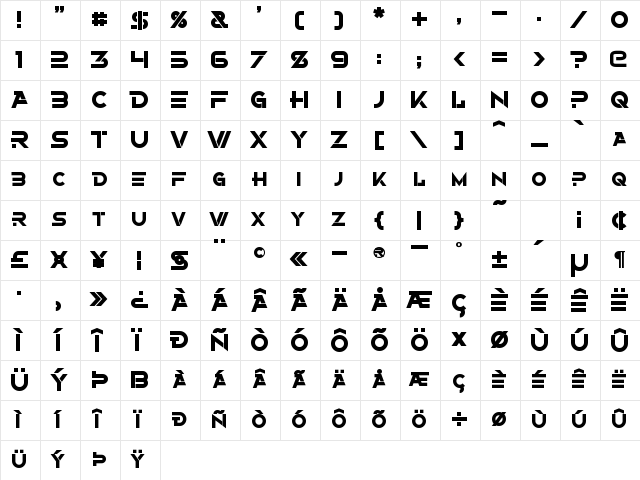
Alternity Bold Free Font
Alternity Bold
Foundry: Pixel Sagas
Designer: Neale Davidson
Design Context for Alternity
Alternity is a composed and adaptable typeface that performs quietly and consistently across a wide range of design contexts. Its bold stroke weight gives it real presence on the page.